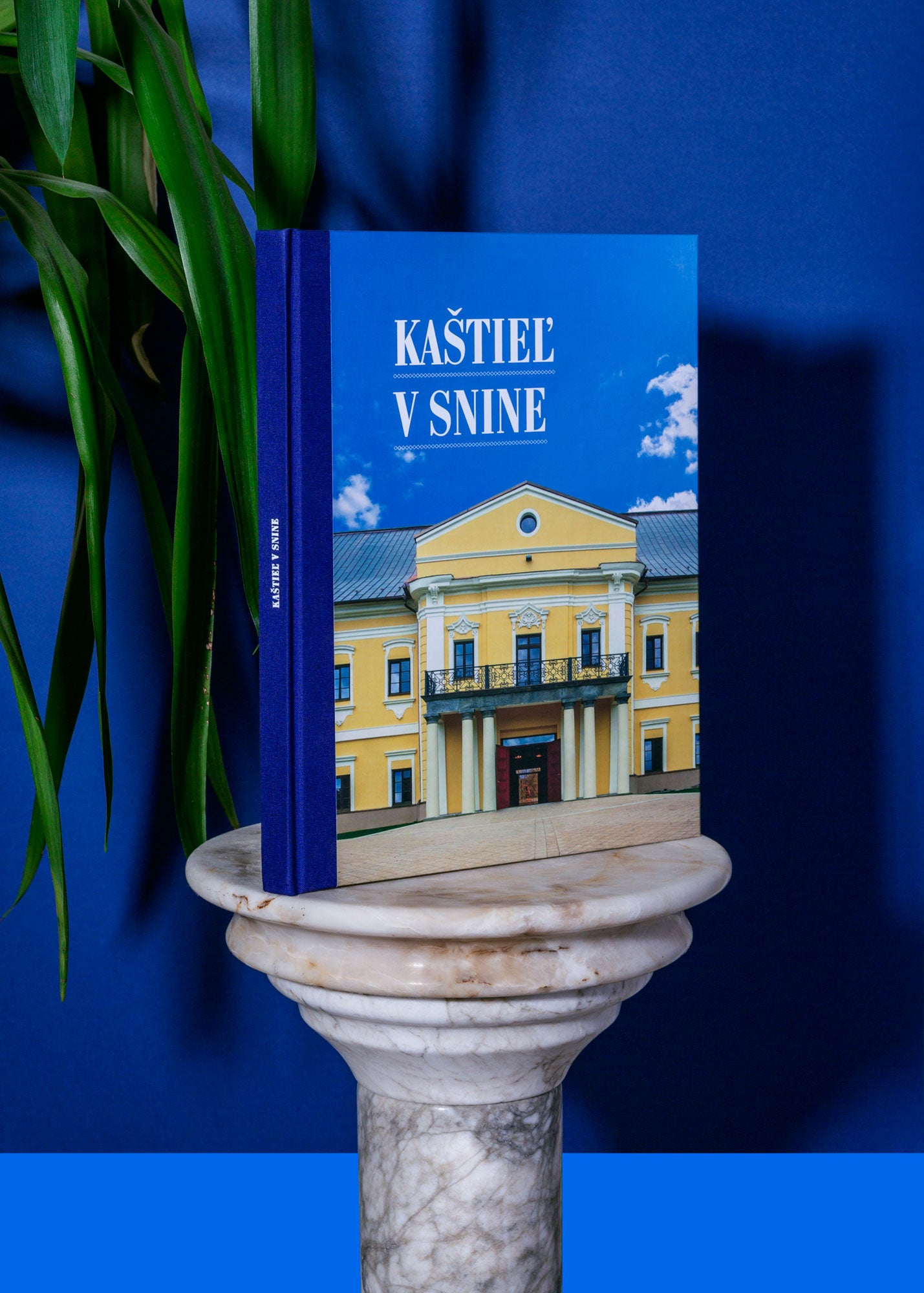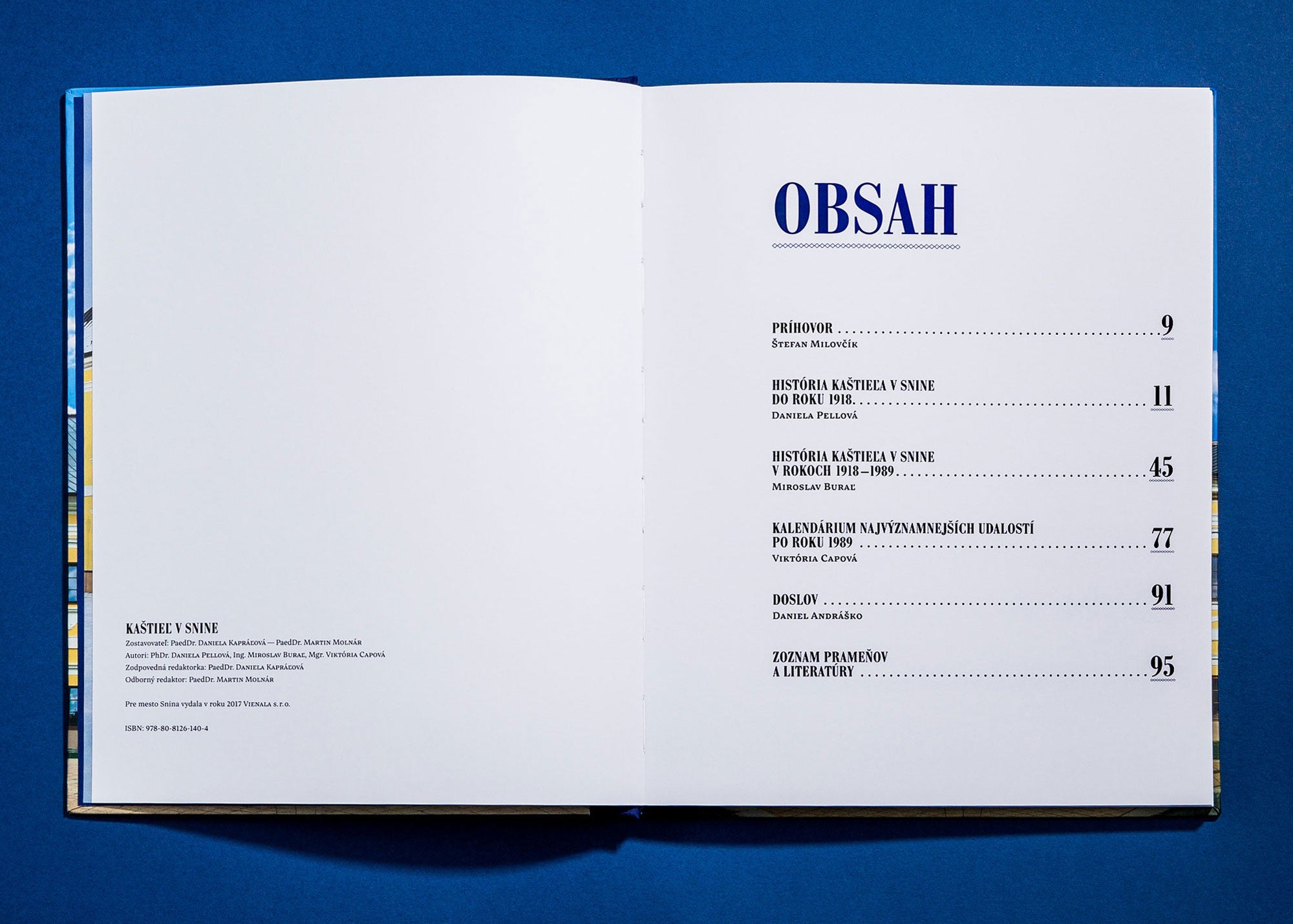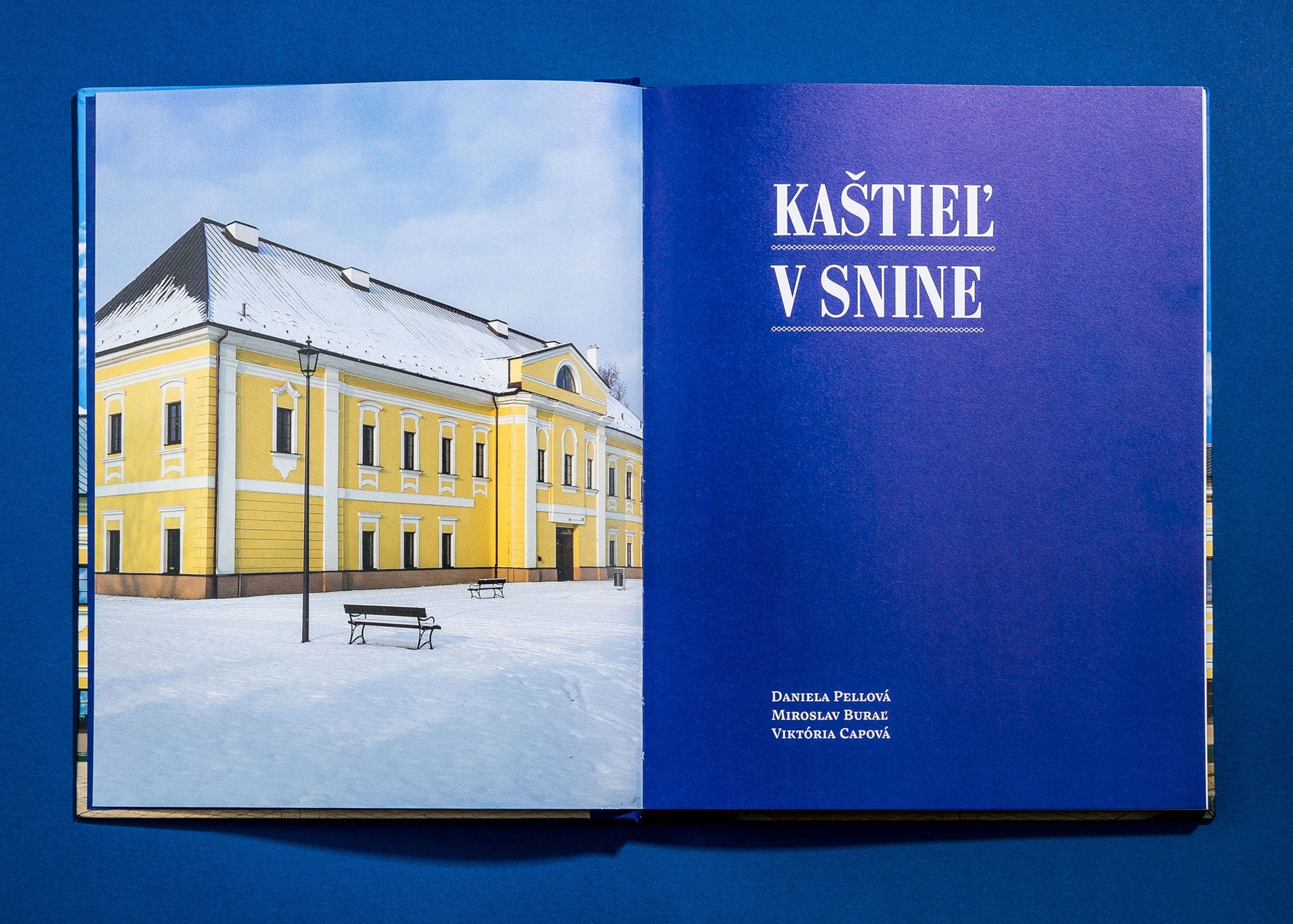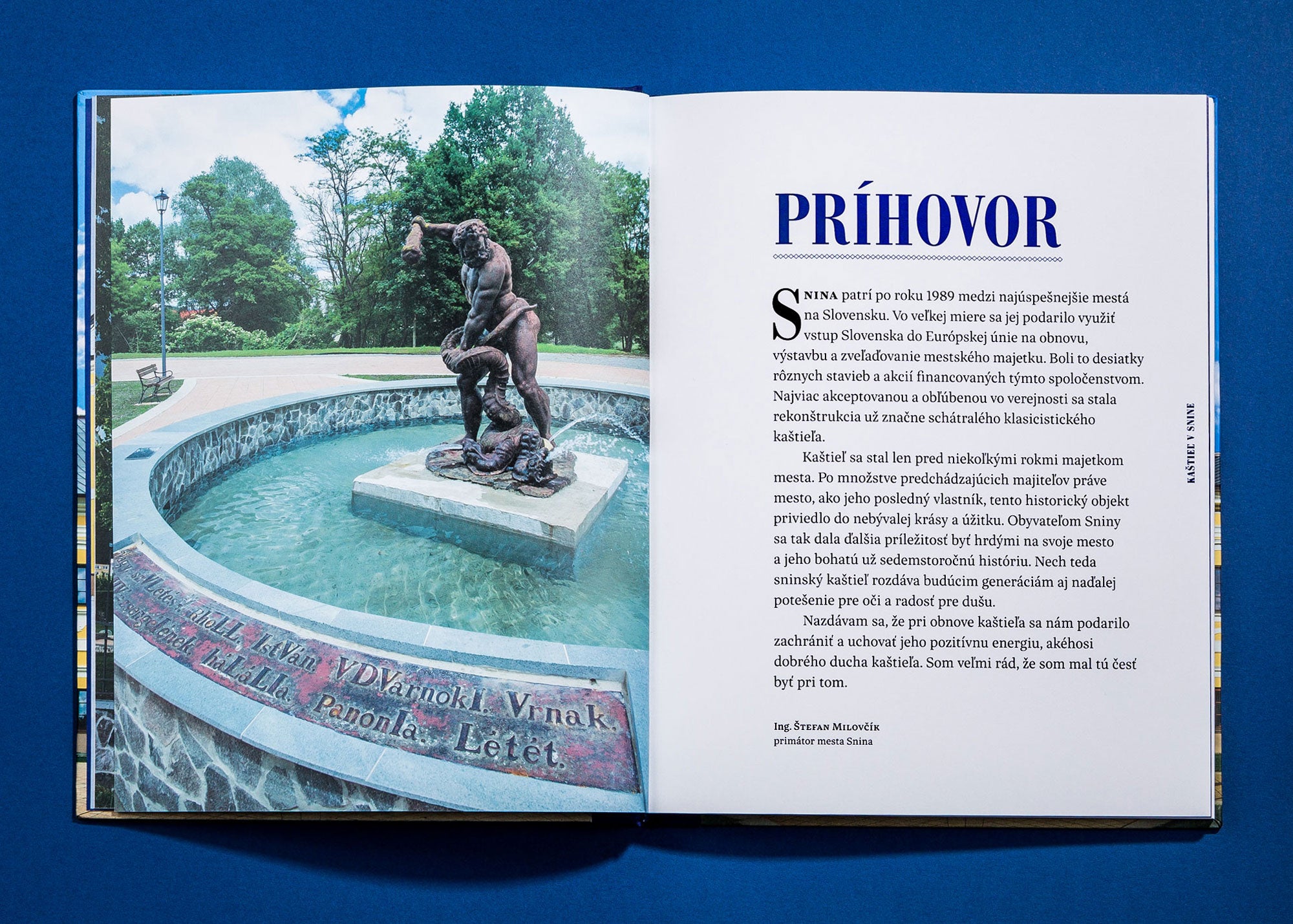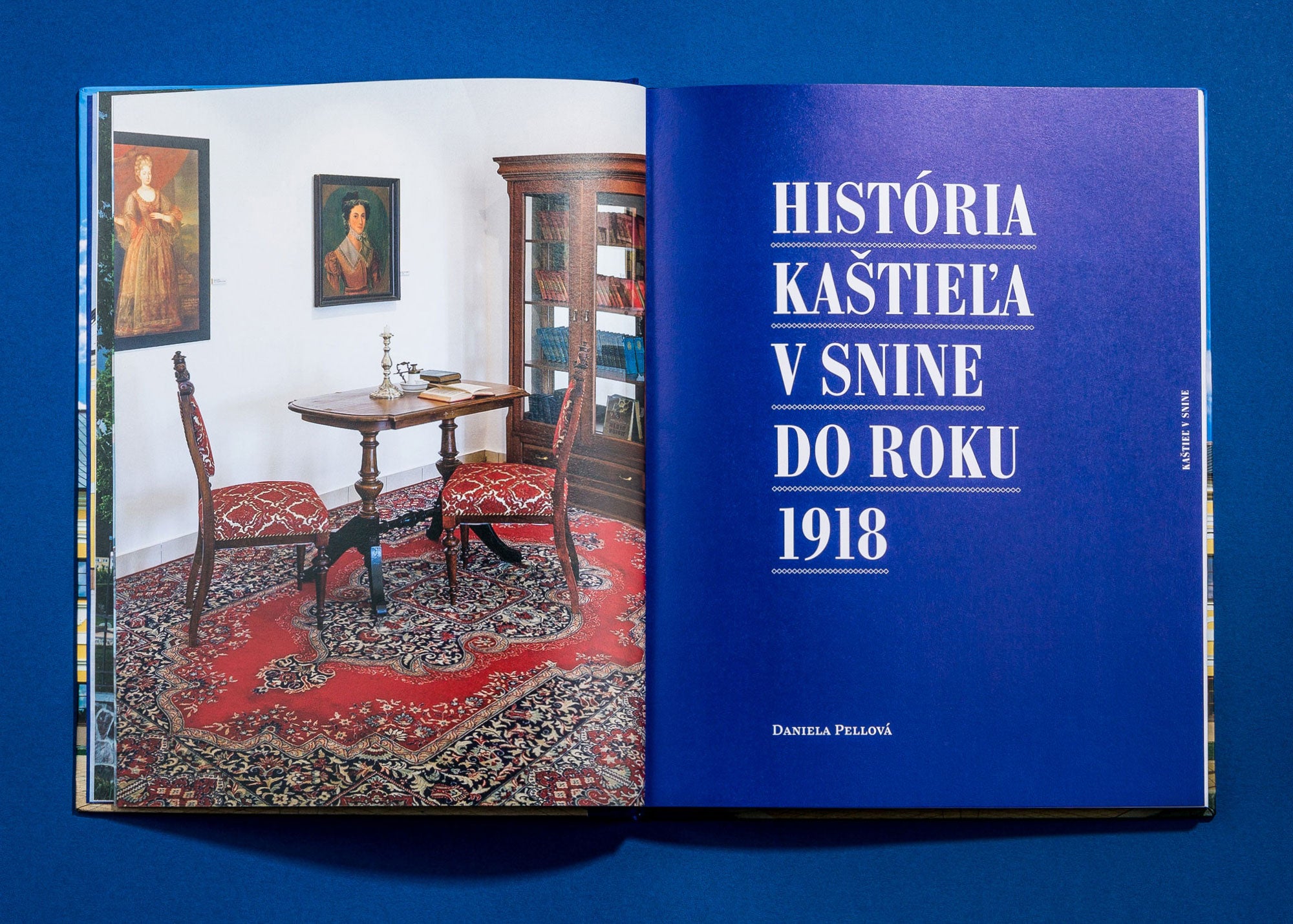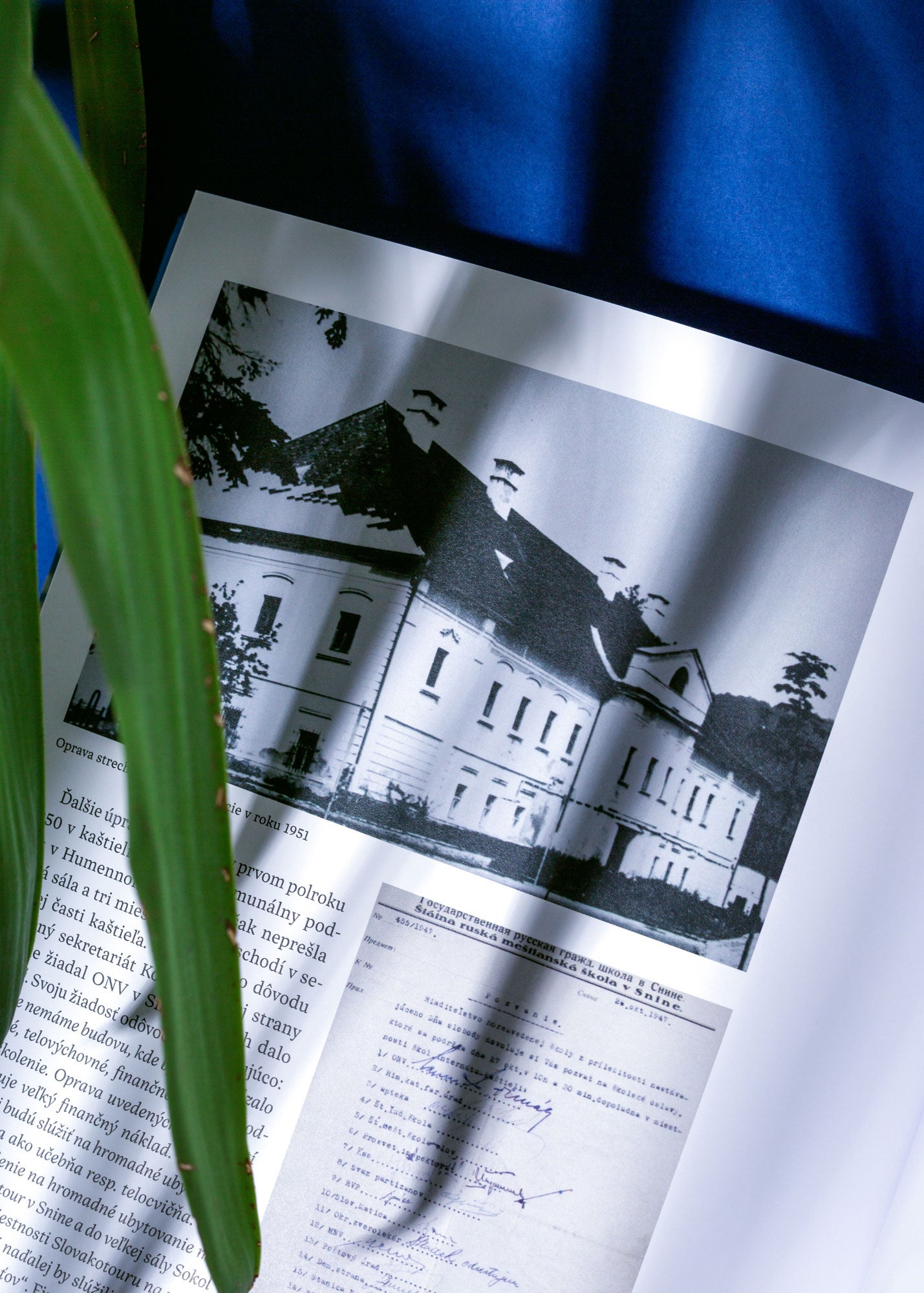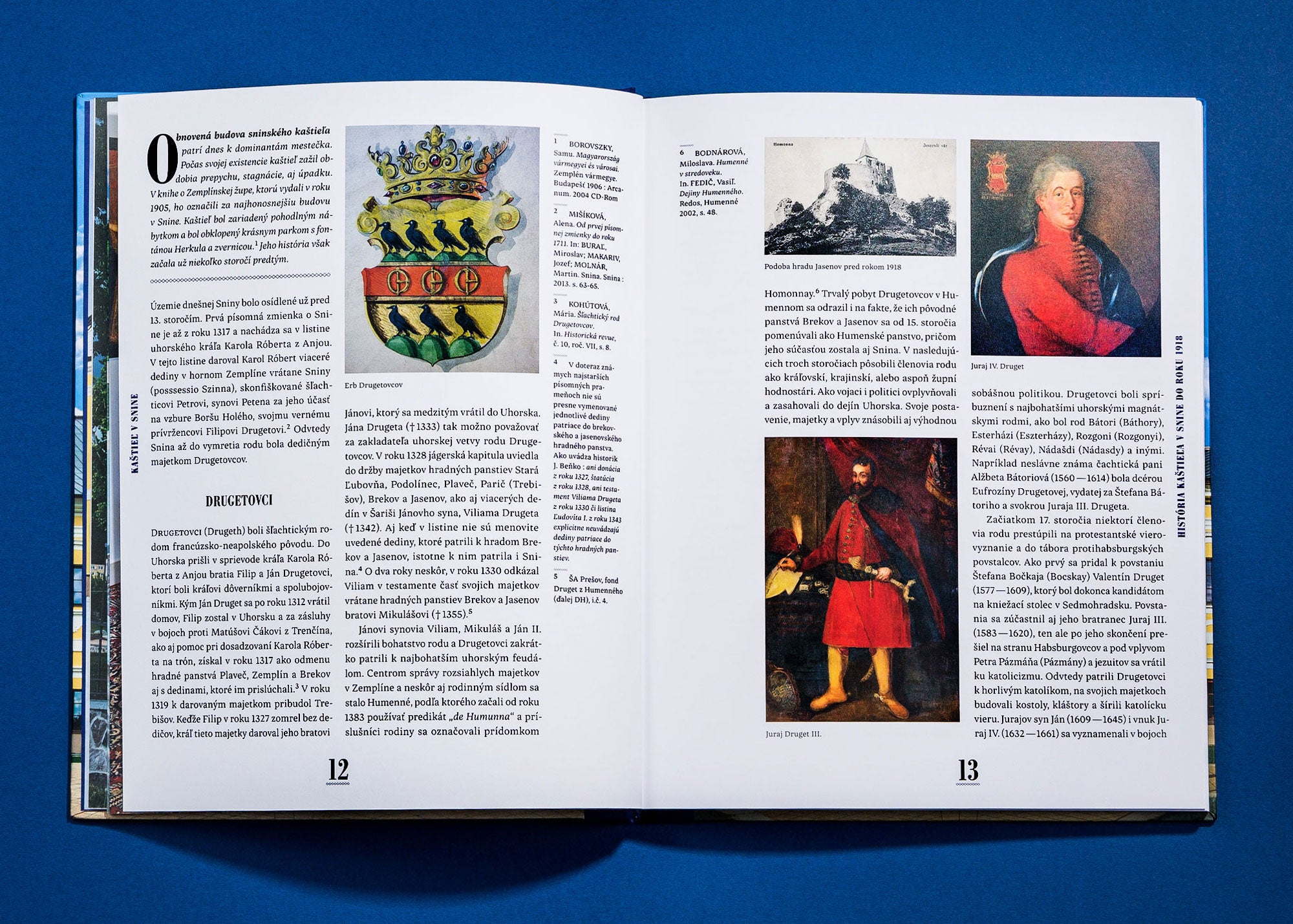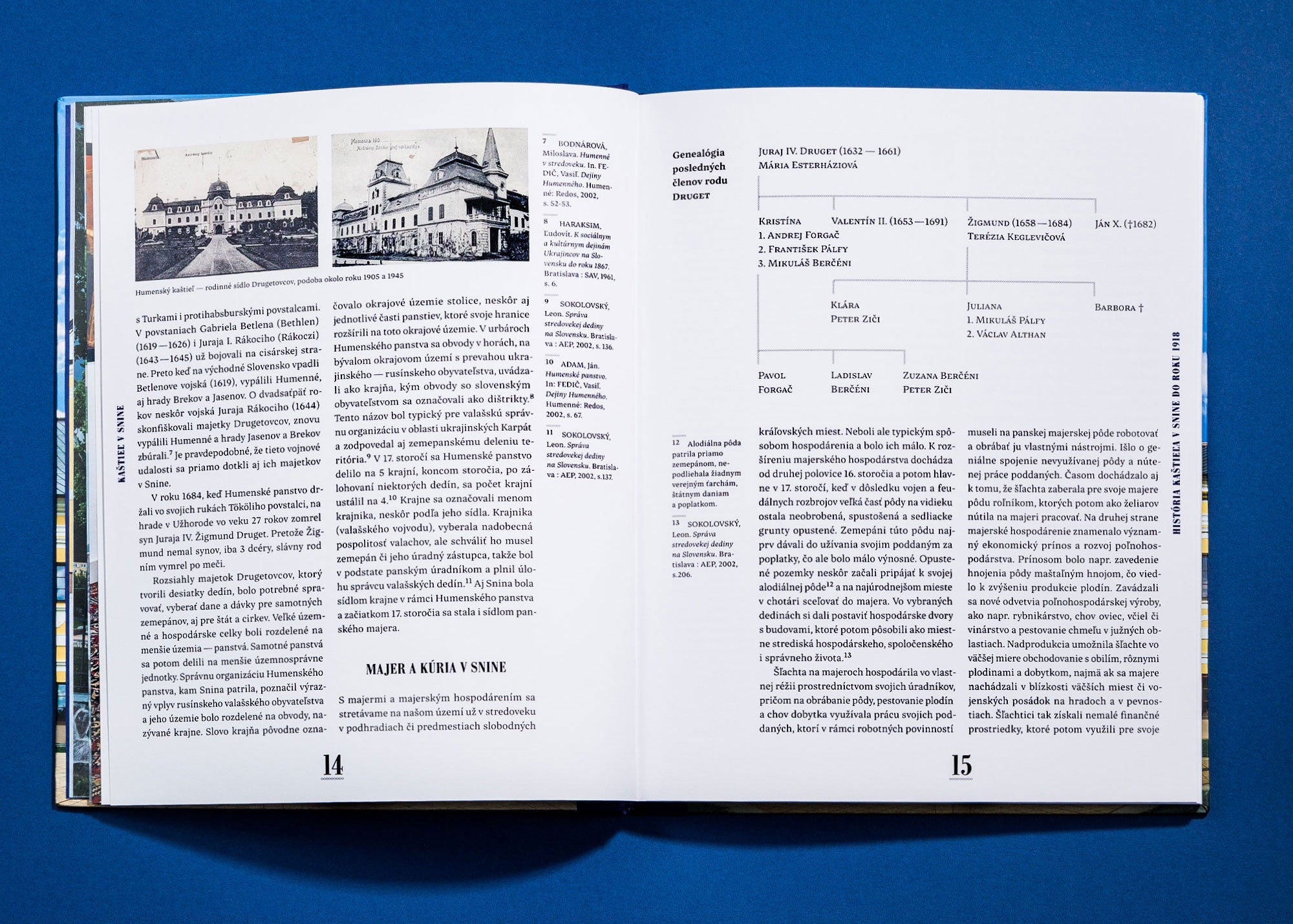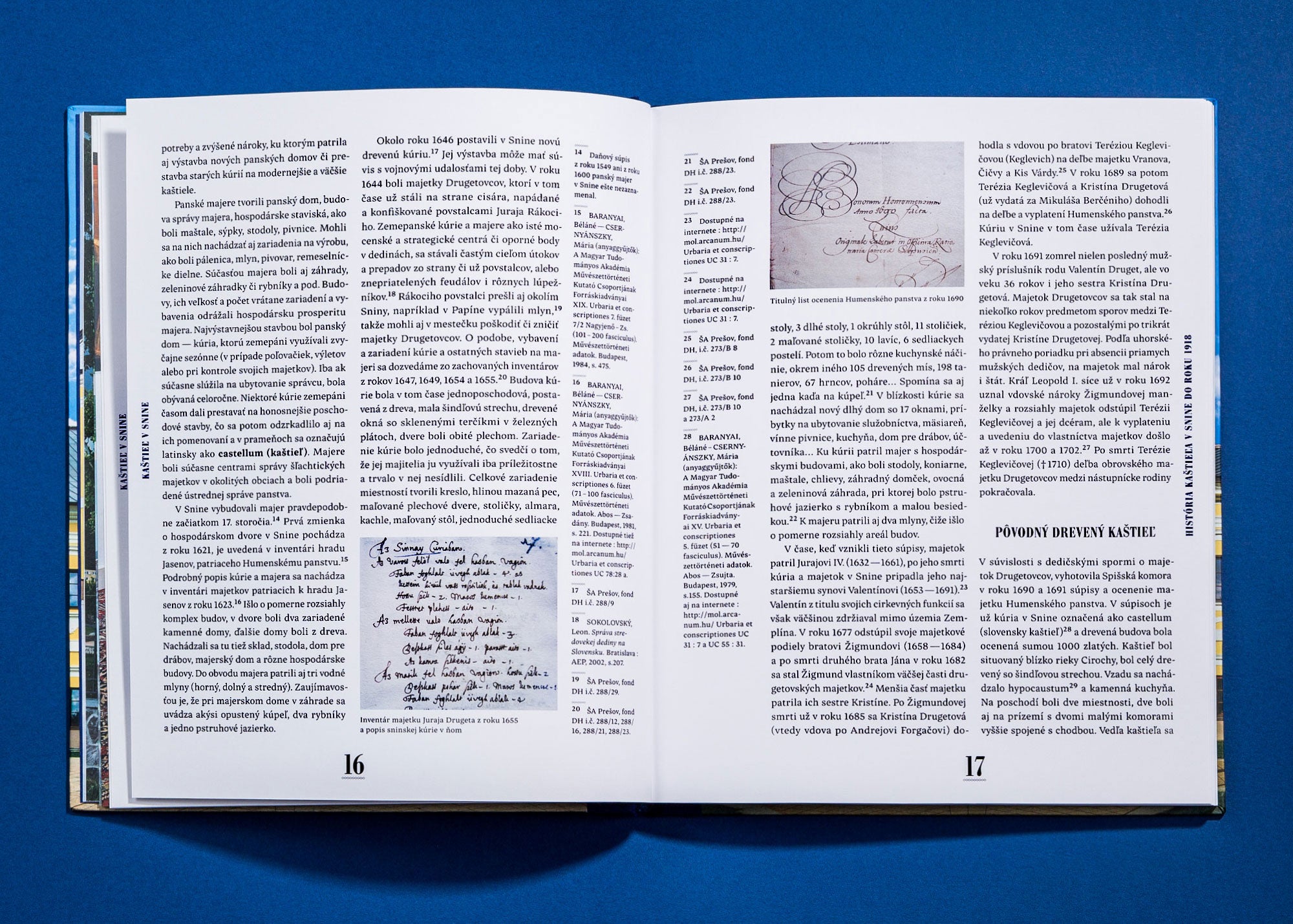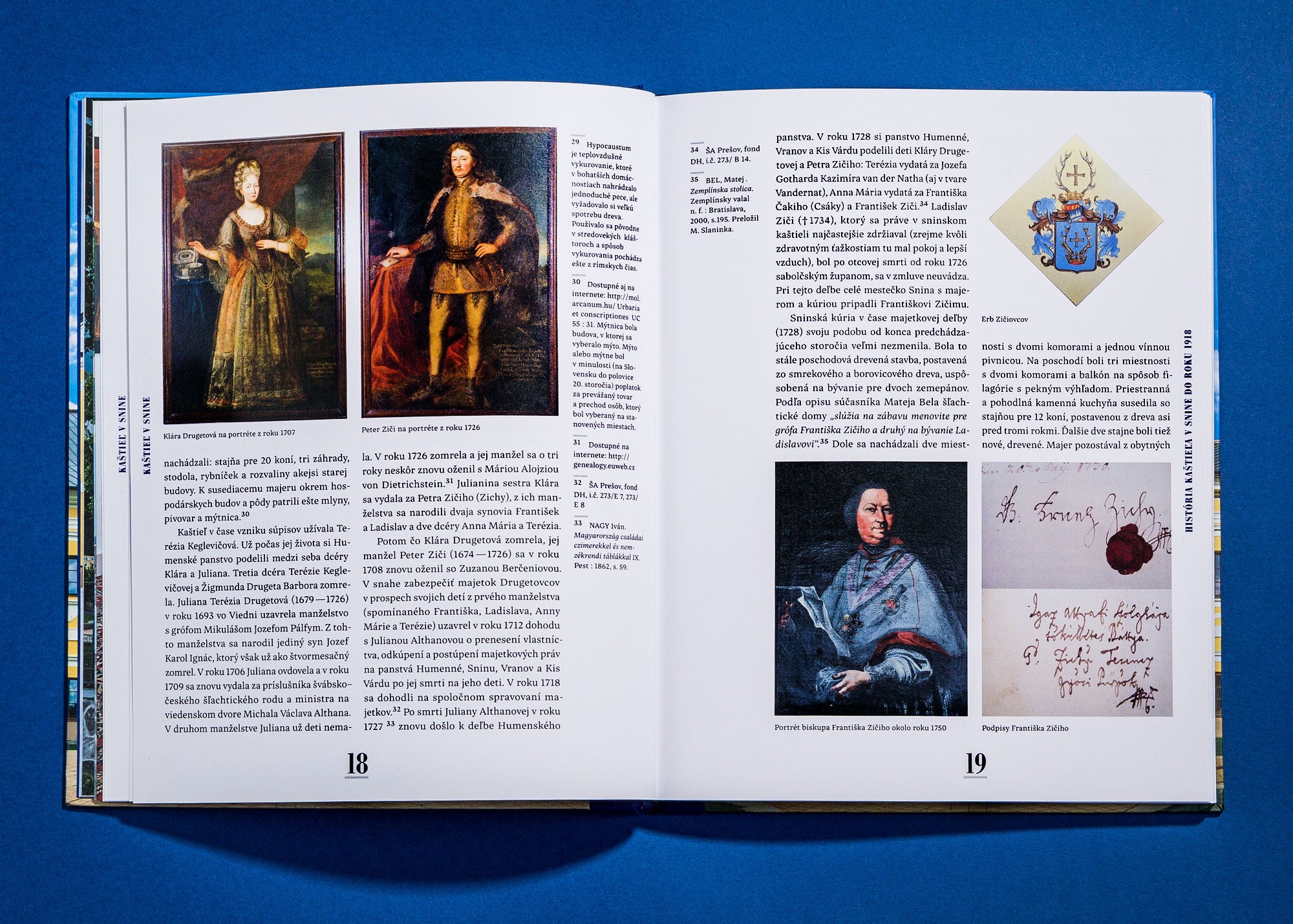
Kaštieľ v Snine
The graphic design for a professional publication on the Castle in Snina. a more complex structure and division of content, a lot of pictorial material and side notes in an easy to navigate graphic layout, designed with the idea of confronting historical foundations and current approach. The practical layout is characterized by modest typography, bold headlines and pagination, extensive pictorial material and navigation at the outside margins.
Kaštieľ v Snine (Castle in Snina) • half cloth binding • 200 × 250 × 10 mm • 96 pages • typefaces: Bodoni / Inka B Text • published by: Vienala, Košice 2017 • photo credits: Diana Dobrescu • design: © Samuel Čarnoký (2017)